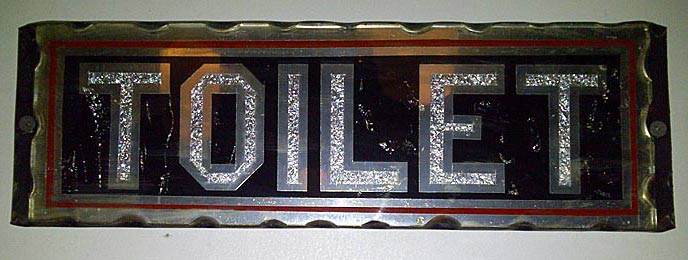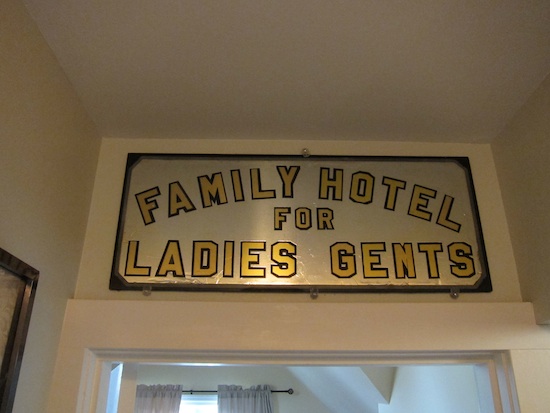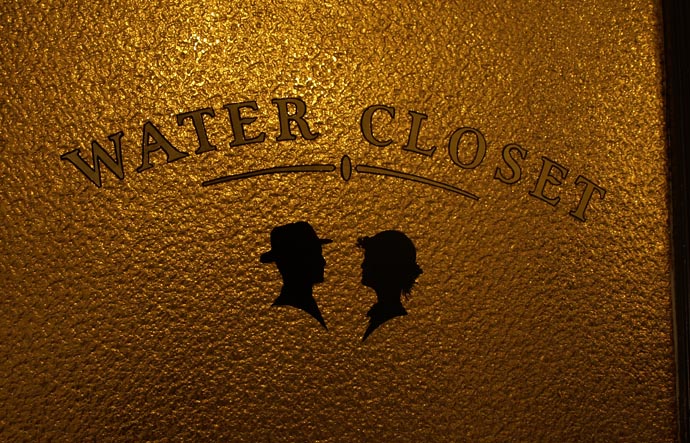
Toronto Restroom Sign
I thought you guys would get a kick out of this..........I was in Toronto Canada this past week gilding a window. I went into an old local coffee shop and saw this really cool, old glass sign on the restroom door! The owners said they picked it up in a antique shop a while back. I guess it just shows that even the most common, taken for granted sign probably on the earth can be taken to a high level!!! The sign is about 18"wide x about 5"high. Pretty cool!
That's a cool sign. Is it held on to the metal backing sheet by little flanges bent over the "plinked" edges?
I have a mimeoed page of directions for making "lead foil" signs; I think from the 1930s. You would glue thin lead foil on the back of the glass, then cut the letters and border with a sharp knife and weed them out. This one looks to be backed up with red in the border, with black everywhere except the letter centers, then with a textured foil. All the ones I've seen use a simple block letter, but if you were hot you could probably cut a script too. They seem to last forever...
This is one I bought from a dilapidated hotel, about to get torn down. I think they are "gold" decal letters, with the lead foil over them and some sort of grey border, then black paint. No plinked edge - it may have been in a frame, or just held with mirror clips.
Earlier this year I did the windows and some internal lettering for a bar in Prahran (Australia). It was done out in a club atmosphere, with hunting paraphenalia, dark timber panelling and some early 20th century fittings.
The door to the toilets had this nice ripple glass, so i wrote "water closet" upon it in matt gold with an outline, painted freehand so it looks nicely hand-done. Some of their young patrons kept asking "where are the toilets?" so a few weeks later, I added the silhouttes to help the illiterate...hahaha
It's only small, but i think it works nicely for it's purpose and also keeps the feel of the 1920's
Painting her hair is easy by squeezing the brush hairs between finger and thumb to separate them and then a few quick flicks.
It seems the 'water closet' is getting more attention than usual these days!!!
Nice clean solution to your project. Nice job!
In nyc, pubs and restaurants normally letter'em up 'WC' which leads to alot of confusion in my opinion!
Your silhouttes help to clear that up alot. Real cool.